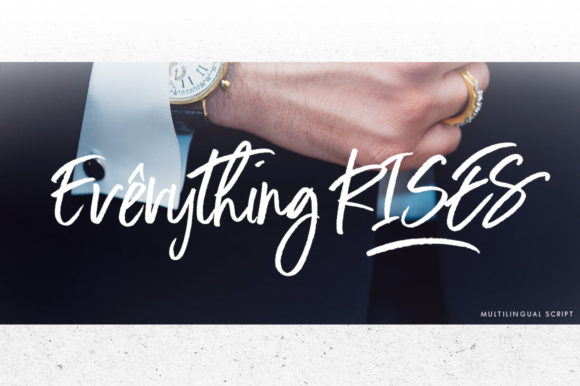
Step into the realm of captivating artistry with Everything Rises, a vivacious script font that ignites a whirlwind of emotions and breathes life into your digital creations. Its dynamic strokes, reminiscent of a painter's fluid brushwork, dance across the page with an untamed energy, capturing the essence of uninhibited expression.
Immerse yourself in the boundless possibilities of creativity with Everything Rises. Its multilingual capabilities unveil a world of opportunities, allowing you to craft messages that resonate with audiences across diverse linguistic landscapes. Let your words transcend borders and cultural divides, spreading your message with a touch of international flair.
Unleash the designer within and let your imagination soar as you explore the depths of Everything Rises. Its expressive nature lends itself effortlessly to an array of design projects, from elegant wedding invitations that whisper tales of love and commitment to vibrant social media posts that command attention in the digital realm.
With Everything Rises, you hold the power to transform ordinary text into captivating works of art. Its exquisite curves and graceful flourishes evoke a sense of timeless elegance, while its playful charm adds a touch of whimsy to your creations. Elevate your designs to new heights and leave a lasting impression on your audience with every word you type.